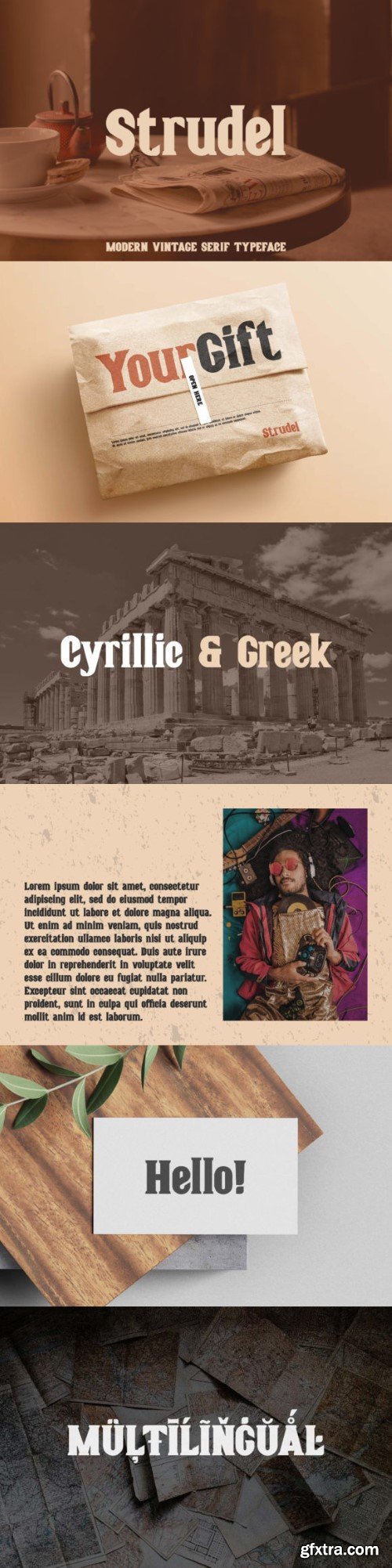
Structured Font
Strudel is a bold and thick lettered serif font. No matter the topic, this font will be an incredible asset to your fonts’ library, as it has the potential to elevate any creation.